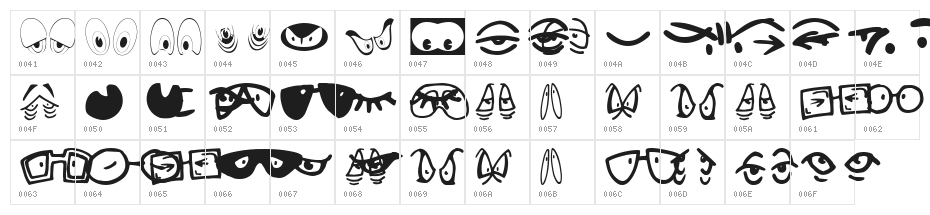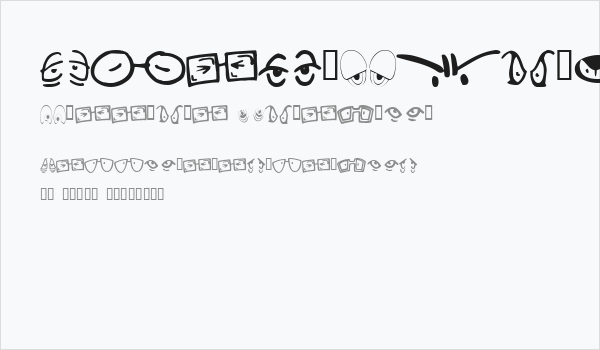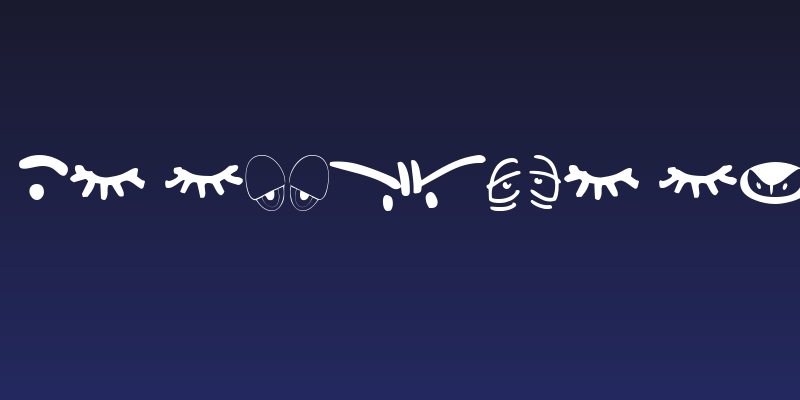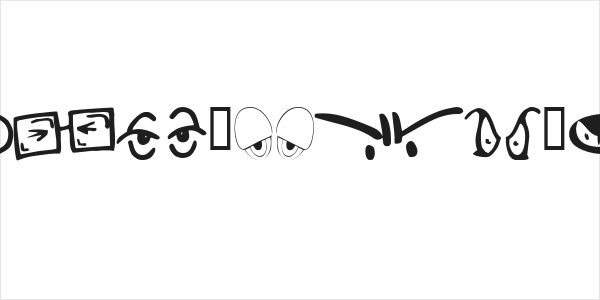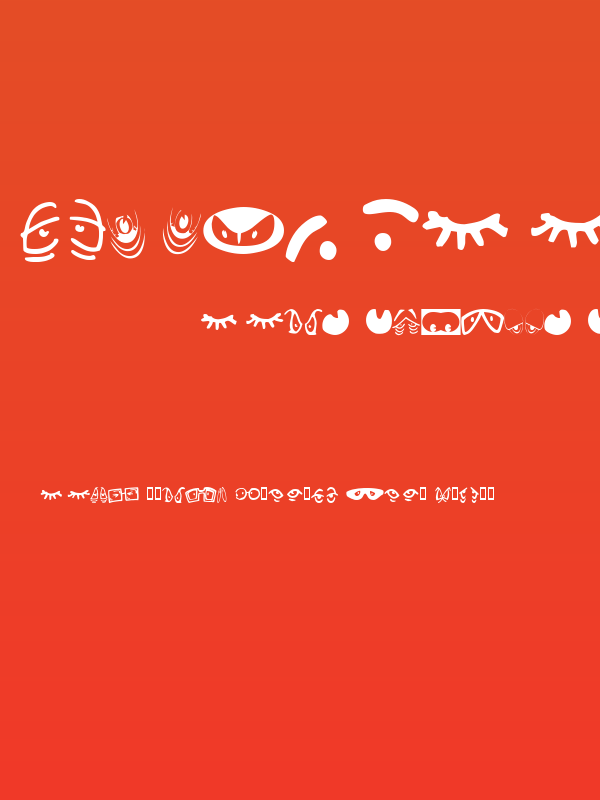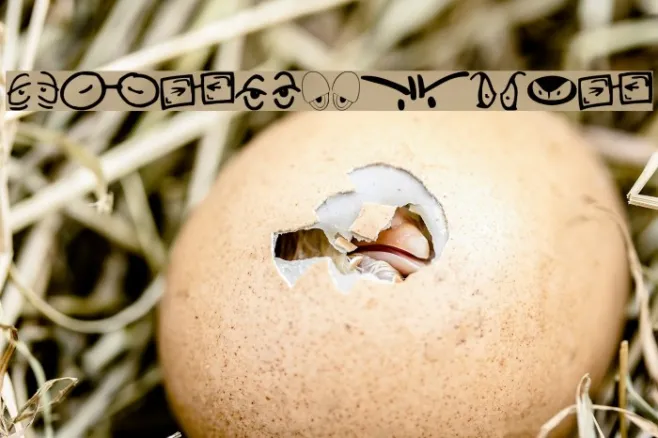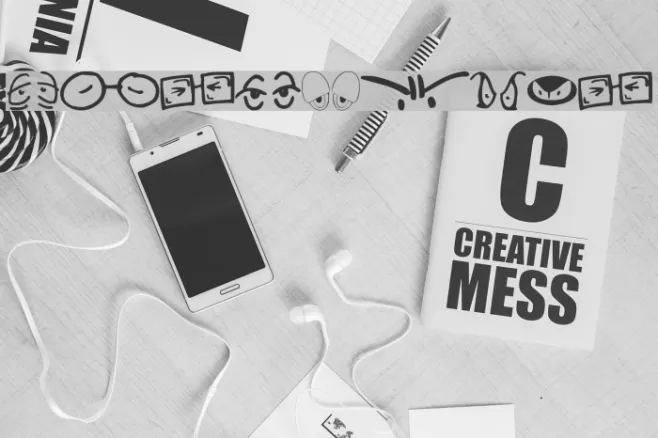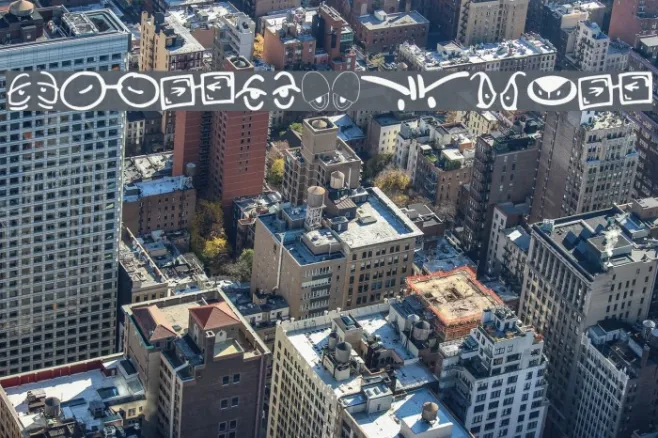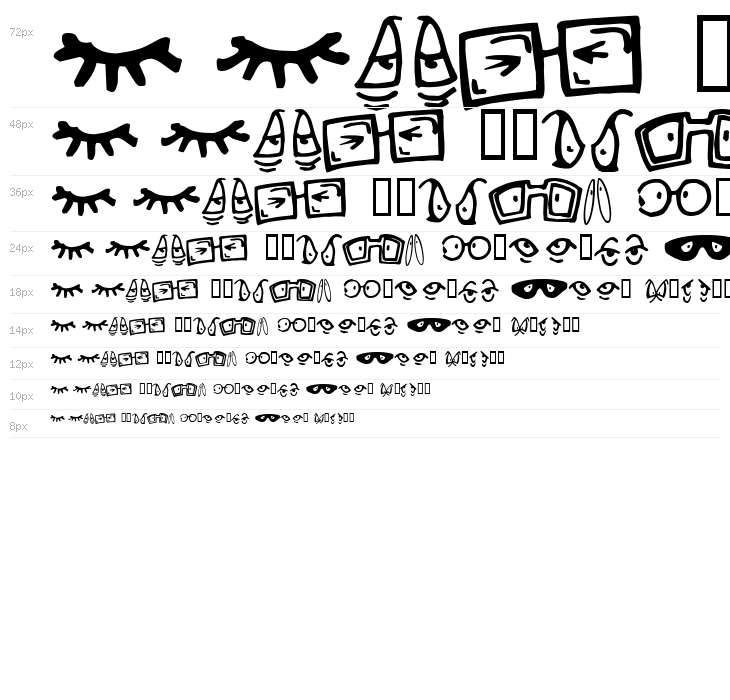
IdentAKitEyes Font
IdentAKitEyes Description
A playful and whimsical decorative font composed entirely of various illustrated eye designs, each character representing a different style or expression of eyes. The glyphs are highly stylized, cartoonish, and vary in complexity, with some being simple outlines and others more detailed with lashes or glasses.
| Overall Style | Whimsical, Playful, Cartoonish, Decorative |
| Use Case | Logos, Posters, Headlines, Themed graphics |
| Proposed Projects | Children’s books, comics, party invitations, creative posters, branding for playful products, educational materials. |